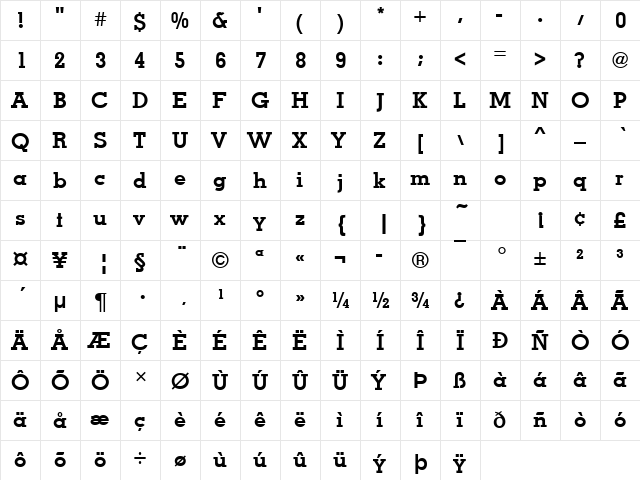
MemphisTMed Regular Font Preview
MemphisTMed Regular
MemphisTMed Regular Font Details
Design Context for MemphisTMed Typeface
MemphisTMed takes a measured approach to typography — its balanced proportions and neutral character make it a reliable workhorse for both digital and print work.